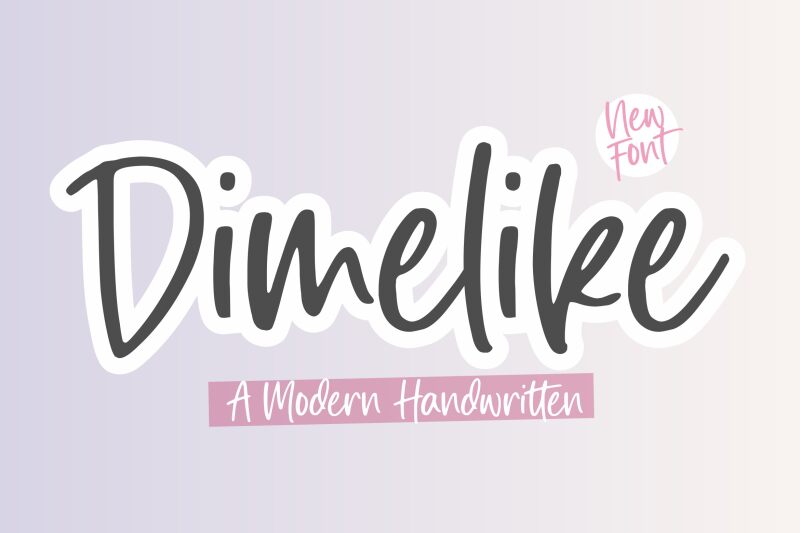
Dimelike
Dimelike by Balpirick Studio is a modern handwritten font with a semi-light weight. Its stylish curves and elegant strokes make it perfect for fashion blogs, lifestyle magazines, and wedding invitations, adding a touch of sophistication to any project. With its versatility, Dimelike also suits product packaging designs, creating a trendy and eye-catching appearance. This font effortlessly blends contemporary aesthetics with the charm of handwritten script, making it an ideal choice for branding materials and logo designs in the beauty industry.
Give your projects a unique and refined look with Dimelike.